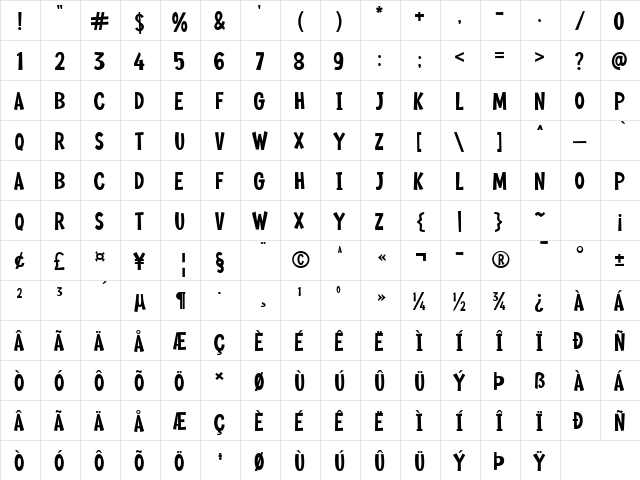
Ginger Soda Regular
| Designer | Kurnia Setyadi |
Design Context for Ginger Soda Typeface
Ginger Soda offers clean, dependable letterforms without strong stylistic allegiance, making it a practical choice for designers who need flexibility.